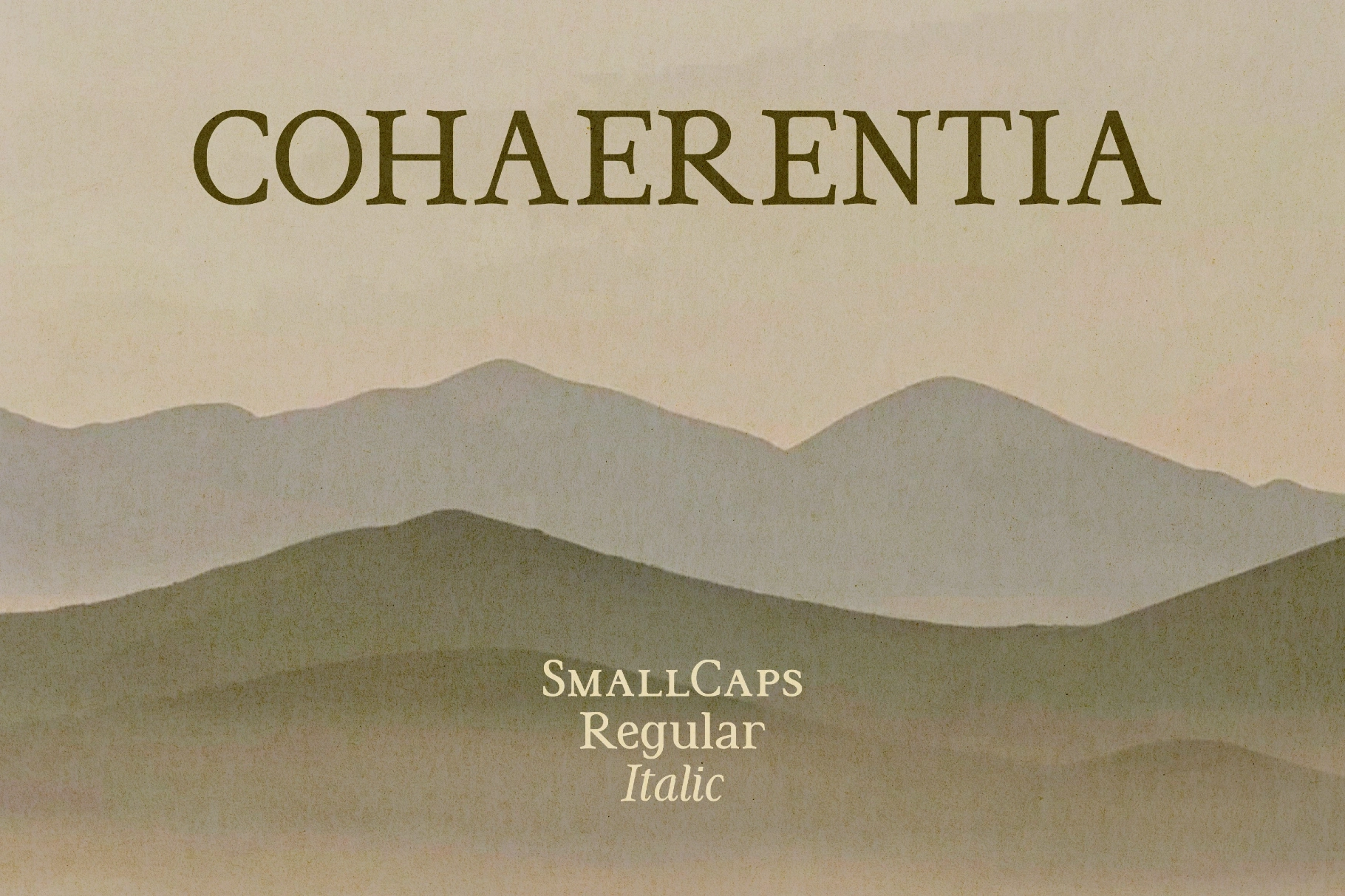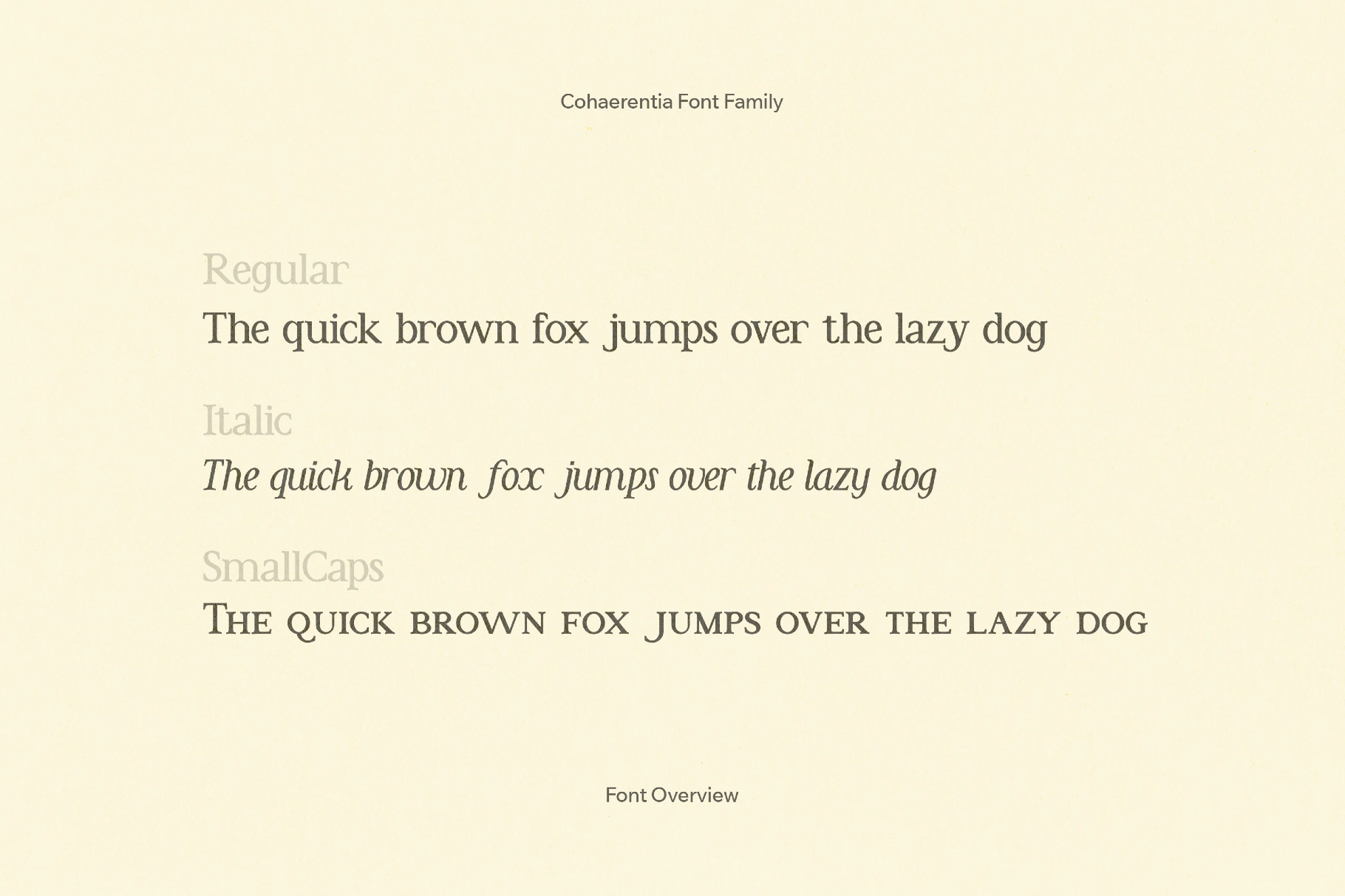
Cohaerentia Font Family
Cohaerentia font family is a literary serif with timid flair. Moderately tall, soft wedges give the letters a handwritten backbone, while the spacing and rhythm make a firmly print-ready effect. Small caps supply a typographic accent for names, dates, and acronyms. The italic leans into calligraphic motion for emphasis.
Use cases include magazine mastheads, university press jackets, classic fiction reissues, restaurant and wine labels, museum posters, gallery cards, editorial openers with generous tracking, poetry chapbooks and essays, boutique cosmetics or tea packaging, long-form blog headers, and presentation title slides.